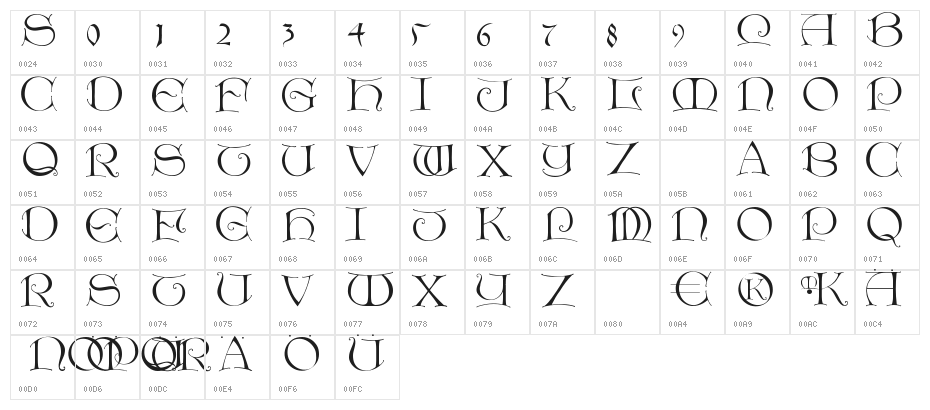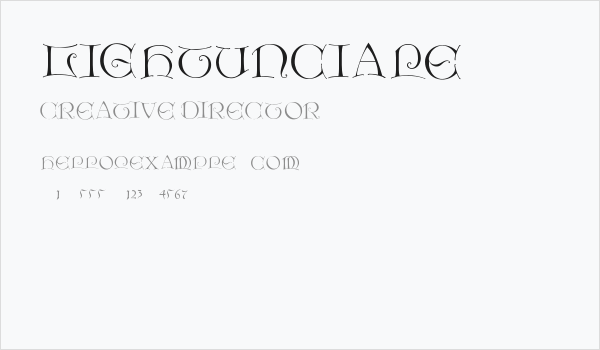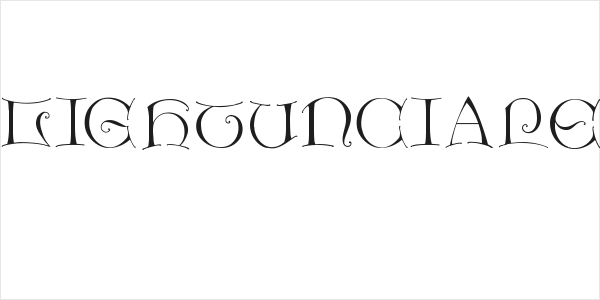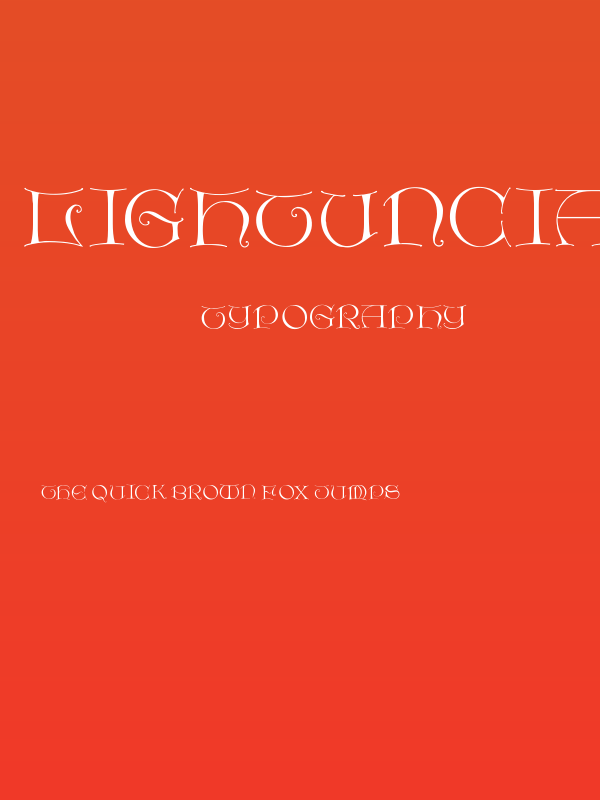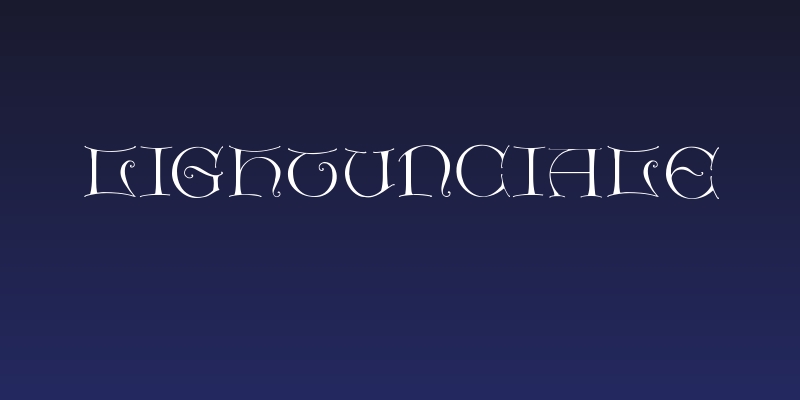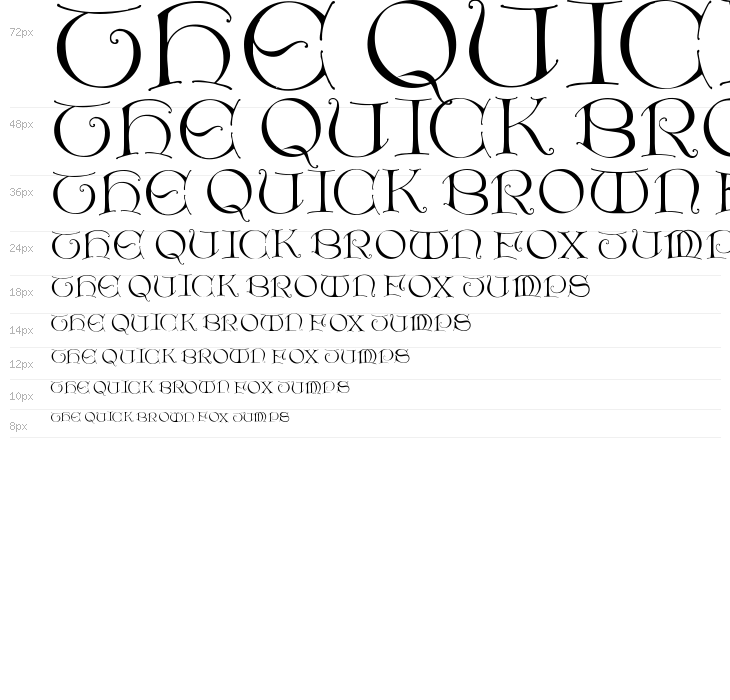
LightUnciale Font
LightUnciale Description
This font features a unique blend of traditional and modern elements, characterized by its ornate and flowing letterforms. The uppercase letters exhibit a distinct medieval influence, with elongated serifs and intricate curves that give it a decorative flair. The lowercase letters maintain a consistent style, complementing the uppercase with their elegant and slightly whimsical design. Numbers are bold and stylized, matching the overall aesthetic. The font's special characters, including symbols like $, ?, &, %, !, #, *, and =, are crafted with the same attention to detail, ensuring a cohesive look across all characters. This font is ideal for projects that require a touch of historical elegance and sophistication.
| Proposed Projects | Perfect for historical-themed designs, book covers, invitations, and branding that requires a classic touch. |